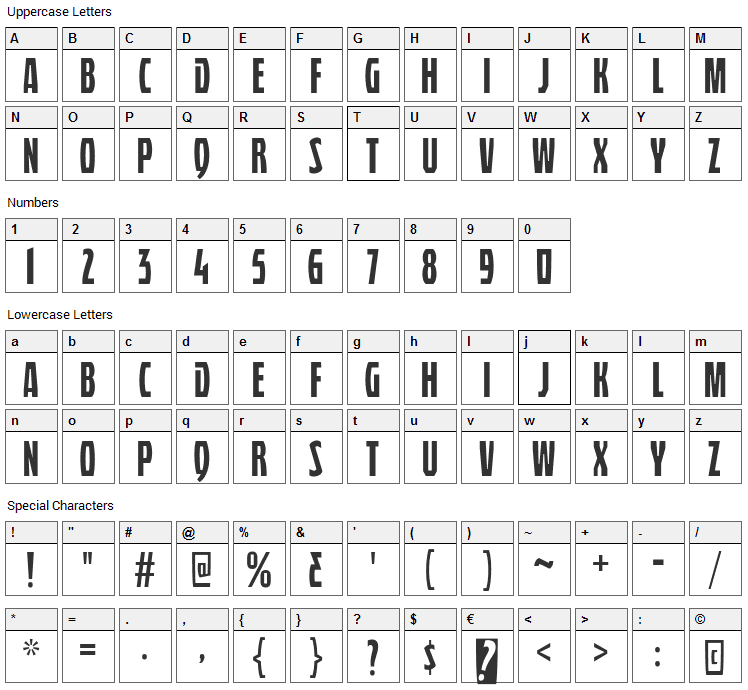
Quasix Titling Font
Font Name:Quasix Titling
Quasix is a compact, industrial headliner. Like the inside of a machine, it appears functional, even though the specific purpose of each individual part may not be understood by the viewer. Often, a designer needs to convey the idea of engineered devices without resorting to a stereotypical techno typeface or something more concrete like gears and bolts. Unlike many display fonts in the industrial category, Quasix isn't tied to any particular era, making it suitable for retro, contemporary or futuristic themes. If you'd like lowercase letter, check out the regular Quasix font.
Quasix Titling is a fancy, various font designed by Typodermic Fonts. The font is licensed as Free. The font is free for both personel and commercial usages. In doubt please refer to the readme file in the font package or contact the designer directly from typodermicfonts.com.